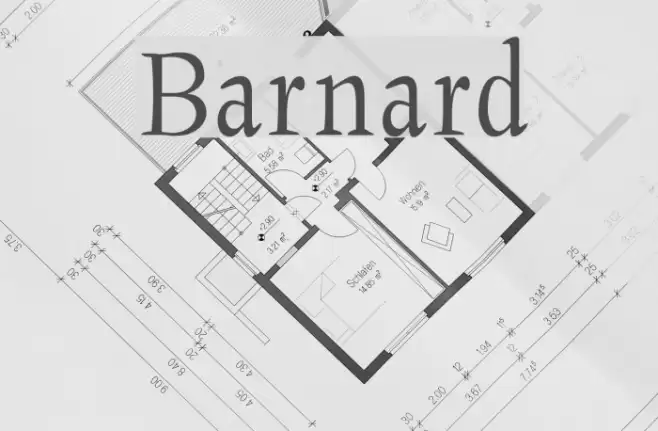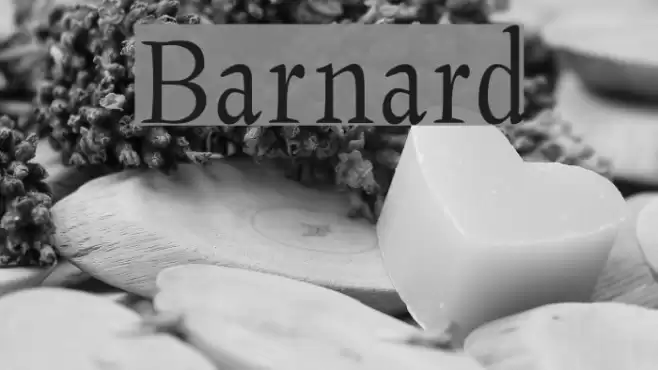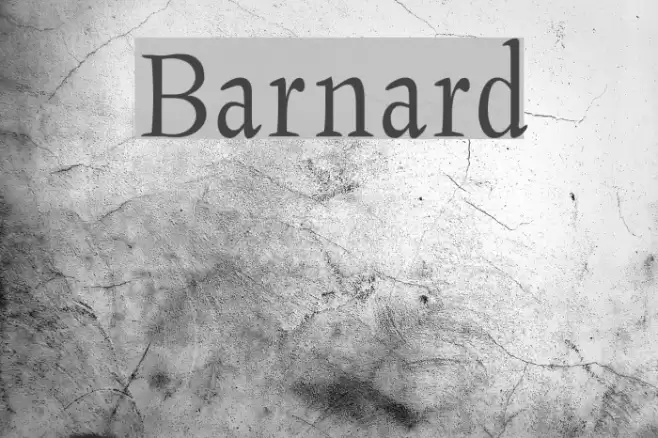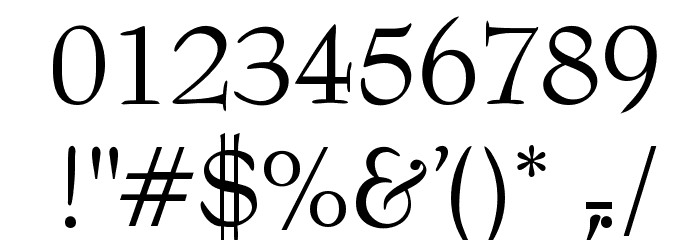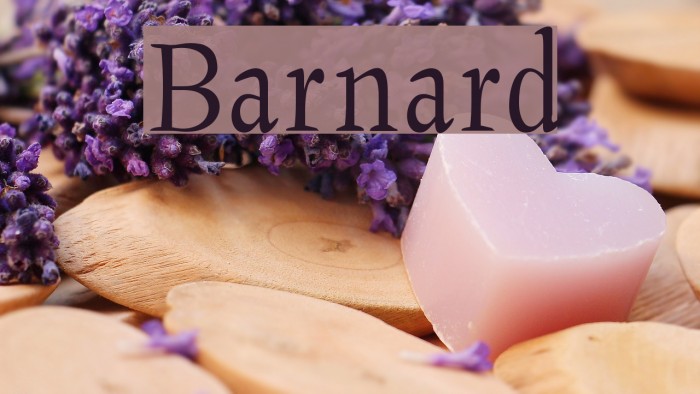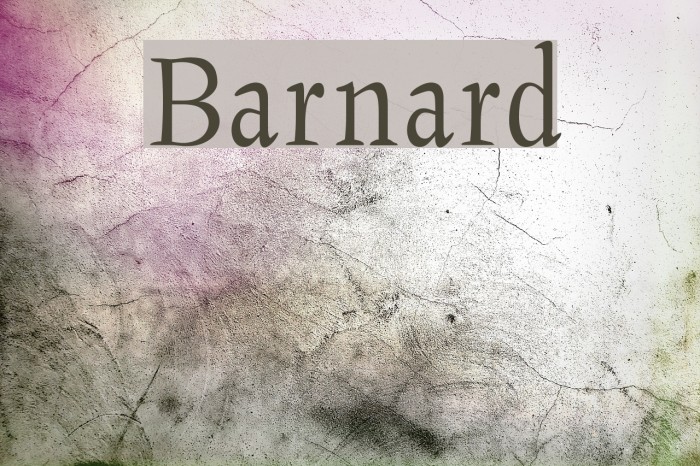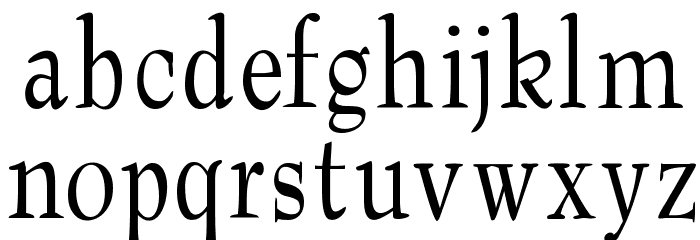
Barnard
This font exhibits a classic serif style with distinct, sharp serifs that give it a traditional yet sophisticated appearance. The uppercase letters are elegantly proportioned, with a slight contrast between thick and thin strokes, enhancing readability and visual appeal. The lowercase letters maintain a consistent style, with rounded forms and well-defined serifs that add a touch of elegance. The numerals are clear and balanced, making them suitable for both text and display purposes. Special characters are designed with the same attention to detail, ensuring a cohesive look across all glyphs. The overall design is timeless, making it versatile for various applications.
A classic serif font with sharp serifs and elegant proportions, ideal for traditional and sophisticated designs.
- Proposed Projects: This font is perfect for projects that require a touch of elegance and tradition, such as book covers, formal invitations, editorial layouts, and branding for luxury products.
- Category: Serif
- Overall Style: Classic